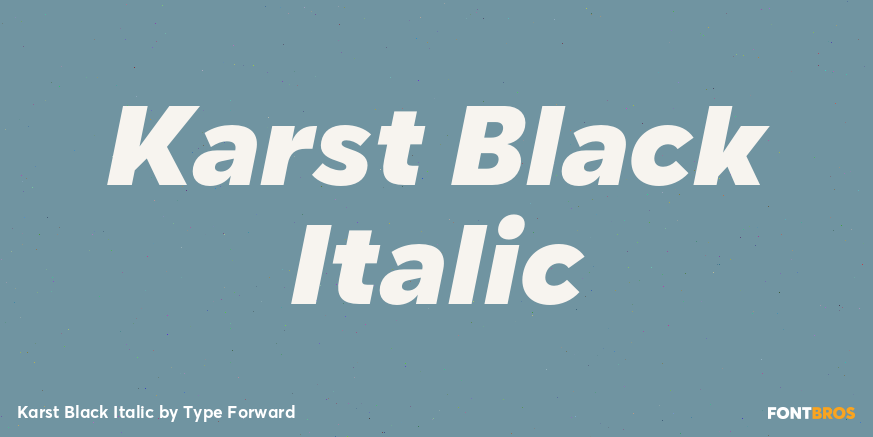
Karst
Font Family by Type Forward
Karst is a geometric sans-serif typeface characterized by precise angles and contemporary shapes. Combining geometric clarity with subtle angular details, Karst achieves excellent readability through its high x-height, open letterforms, and minimal contrast between horizontal and vertical strokes. This makes Karst effective in both headlines and body text.